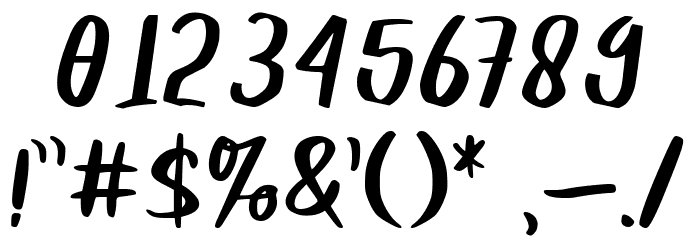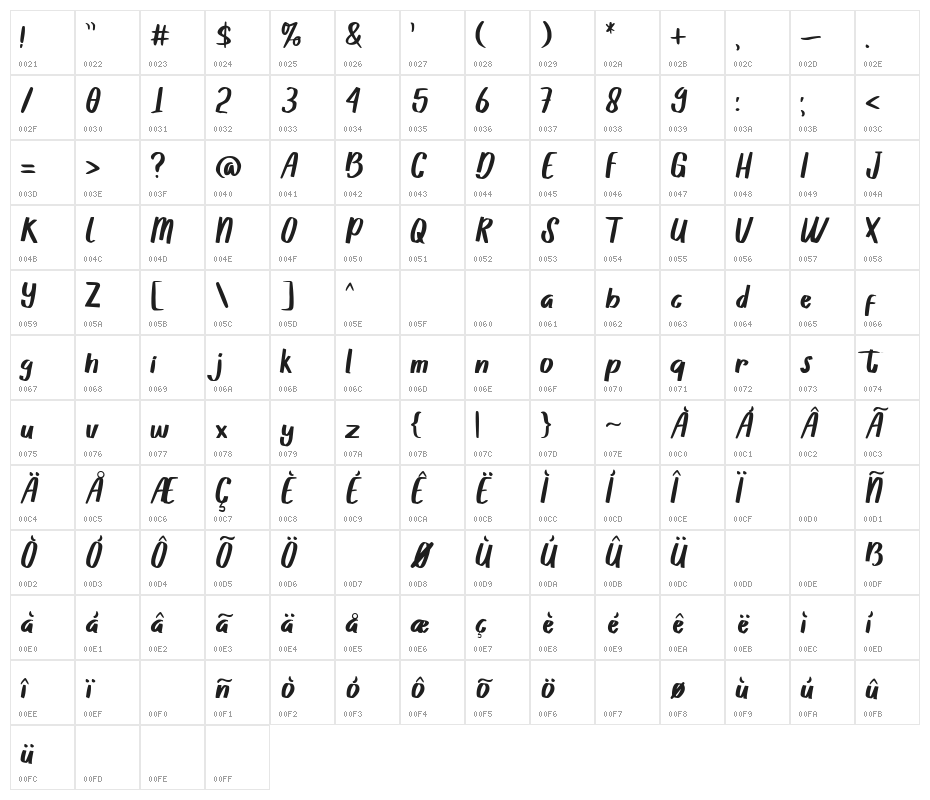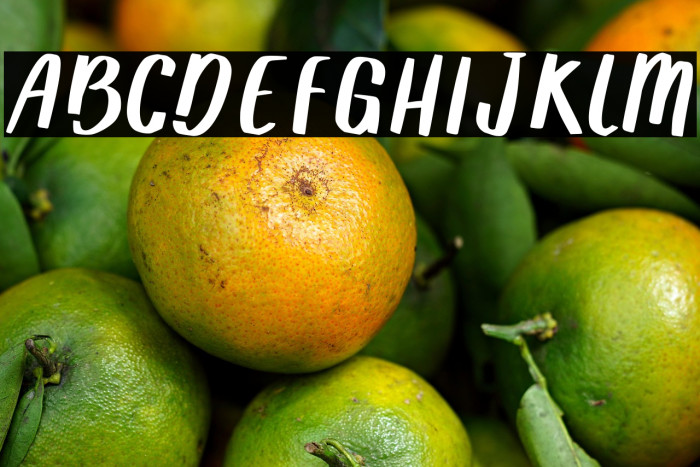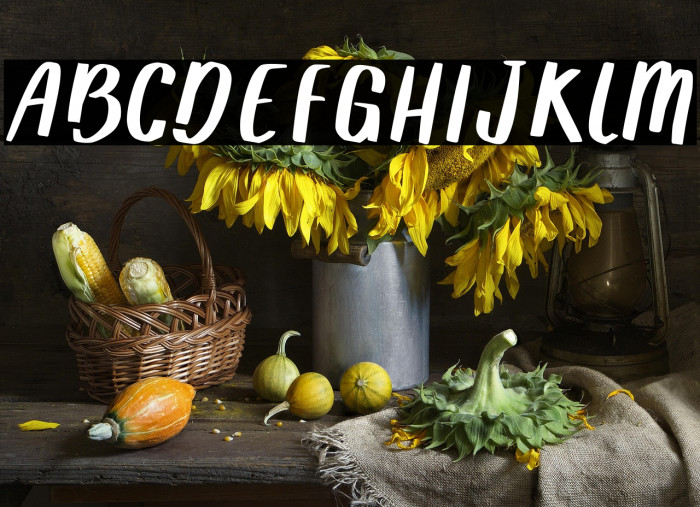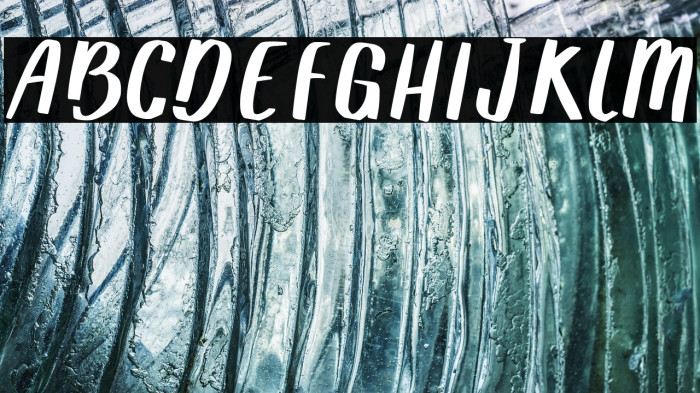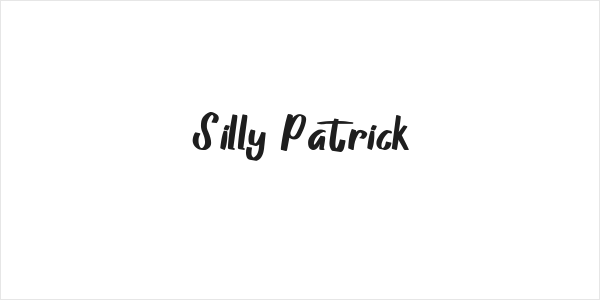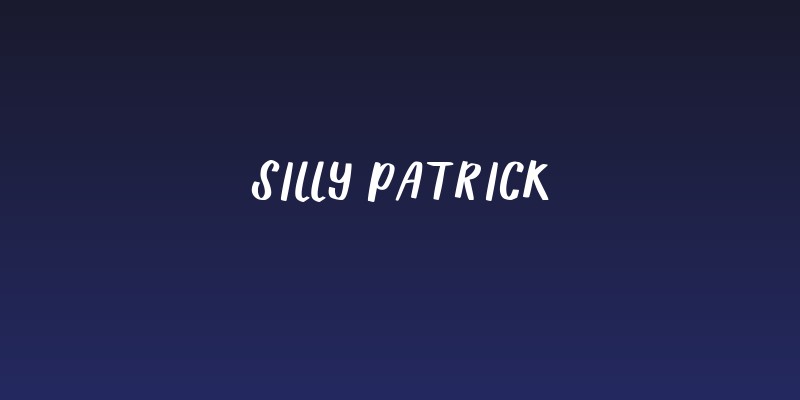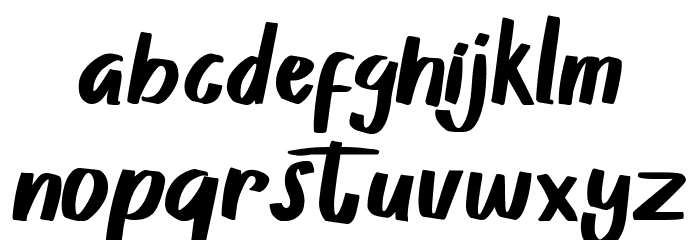
Silly Patrick Font
Silly Patrick Description
This playful and dynamic font features a handwritten style with a bold and energetic presence. The characters are slightly slanted, giving a sense of movement and spontaneity. The strokes are thick and consistent, with rounded edges that add a friendly and approachable feel. The uppercase letters are tall and slightly narrow, while the lowercase letters maintain a consistent height, creating a harmonious balance. Numbers and special characters follow the same playful style, ensuring uniformity across all elements. This font is perfect for projects that require a touch of whimsy and creativity.